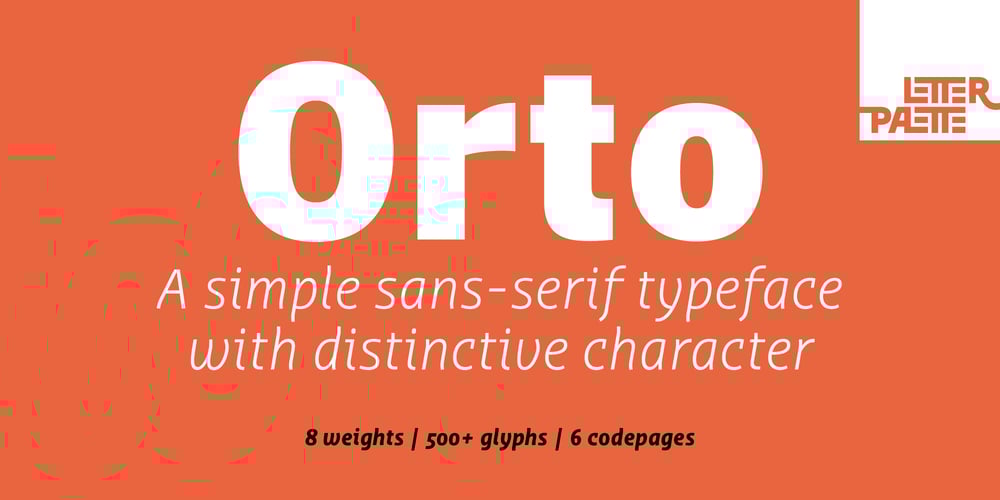
Orto Font Family was designed by Ana Prodanovic and published by LetterPalette. Orto contains 16 styles and family package options. Orto is a type family of sans serif fonts in eight weights. It’s a humanist typeface with real cursive, containing both Roman and Italic styles. The letters are designed to look good on screen, they have a bit narrower proportions and simple shapes. Their structure is based on flat horizontal and vertical strokes, which are emphasized wherever possible. That’s where the name comes from: Orto is an abbreviation of the word orthogonal. Thanks to its narrow width, the typeface is less space-consuming and adapts well to the screens of smaller devices. It is legible in small sizes, thanks to the larger x-height. The characteristic details, like bent ends of diagonal strokes, stand out when used in larger sizes. Orto can be used equally good in print and its overall neutral look fits different contexts. However, its character is pretty recognizable.Orto contains Latin and Cyrillic script and covers six codepages:Latin 1, Latin 2, Cyrillic, Turkish, Windows Baltic and MacOS Roman.It has basic OpenType features like ligatures, oldstyle numerals, proportional and tabular lining figures, fractions, superiors, etc. Capital German sharp S shows up when the lowercase is typed between two uppercase letters, and the Contextual Alternates feature is turned on.The Stylistic Set 01 changes the shape of the Cyrillic b.The Stylistic Set 02 is a shortcut for using Serban Cyrillic alternatives that differ from Russian in cursive.